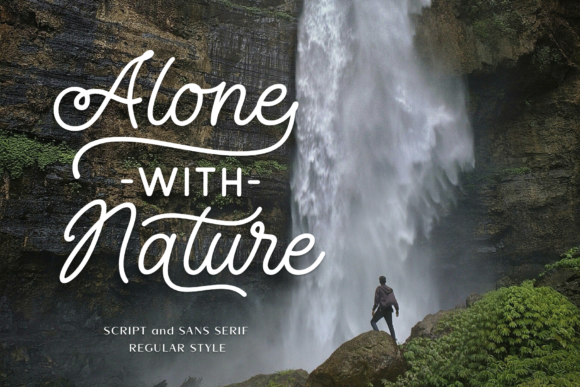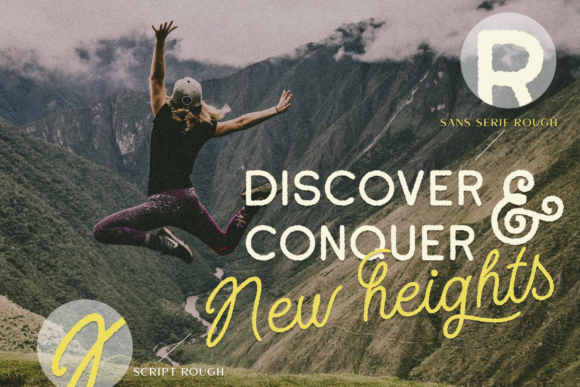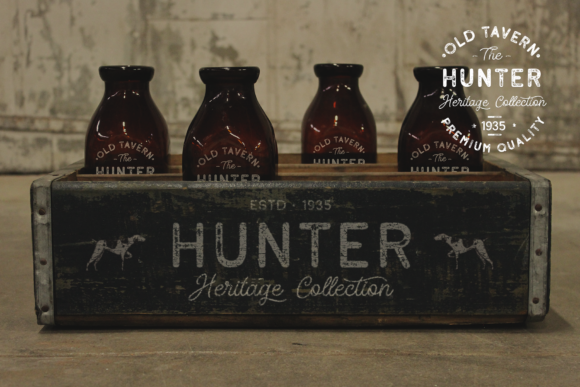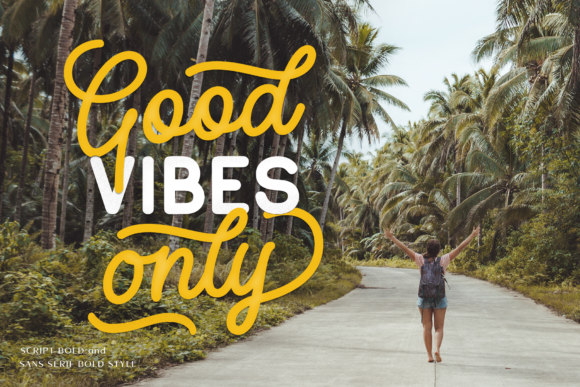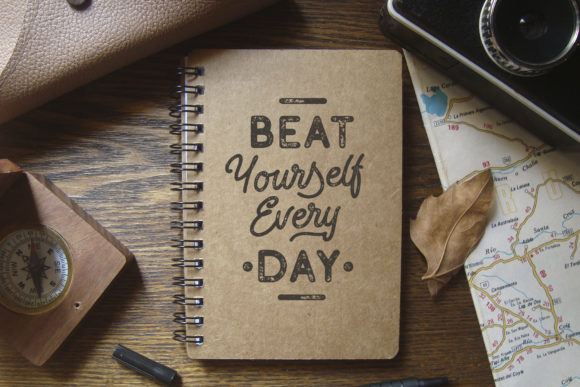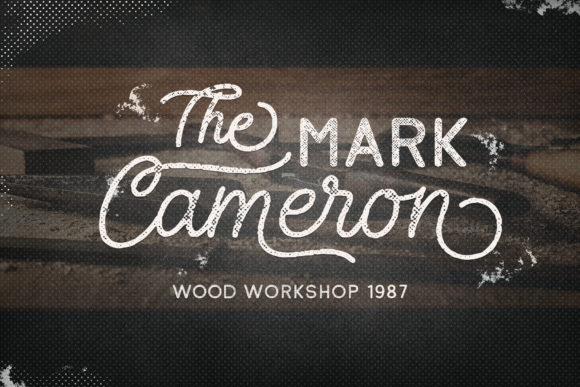
The Ultimate Design Game-Changer: Unleashing the Power of Adventure Island Font
I’ll never forget the moment I stumbled upon Adventure Island Font while working on a branding project for a travel company. I was on a tight deadline, and my design was feeling flat and lifeless. I had tried countless fonts, but none seemed to capture the essence of adventure and freedom that I was aiming for. That was until I discovered Adventure Island – a spectacular duo font that breathed new life into my design and helped me deliver a stunning final product.
So, what makes Adventure Island Font so special? Let’s dive into the good stuff and a few quirks to keep in mind.
- ✨ Versatility: This font duo is incredibly versatile, making it perfect for a wide range of designs, from elegant scripts to bold display fonts.
- ✅ Ease of use: Adventure Island is easy to read and works beautifully in both digital and print formats.
- 💥 Visual impact: The font’s unique style and character set make it perfect for creating eye-catching headlines, titles, and graphics.
While Adventure Island Font is an amazing design tool, there are a few things to keep in mind:
- ⚠️ Glyph limitations: As with any font, some glyphs or special characters might not be available or may require additional setup.
- 🤔 Pairing challenges: Finding the perfect font pairing can be tricky; be prepared to experiment to find the ideal combination.
The Story Behind Adventure Island Font
Adventure Island Font was designed with the creative professional in mind. The designer aimed to create a versatile font duo that could be used for a wide range of projects, from elegant wedding invitations to bold, adventurous branding. With its unique character set and OpenType features, Adventure Island Font has become a go-to choice for designers looking to add a touch of excitement to their work.
Q: What makes Adventure Island Font so versatile?
A: Adventure Island Font’s versatility comes from its duo design, which includes both a script and display font. This allows designers to use the font for a wide range of projects, from elegant titles to bold graphics.